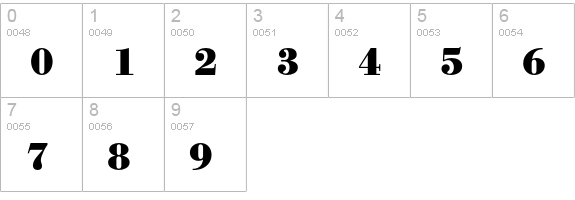
BodoniEF-Bold is a strong, high-contrast variant in the BodoniEF typeface family \xE2\x80\x94 well suited to headlines, attention-grabbing titles, and strong calls-to-action.
BodoniEF-Bold is a striking and elegant typeface that commands attention with its bold and distinctive presence. This font exudes a sense of sophistication and modernity, making it ideal for a wide range of design projects. With its clean lines and sharp serifs, BodoniEF-Bold exudes a timeless appeal that is both classic and contemporary. What sets BodoniEF-Bold apart is not only its striking design, but also the fact that it is available for free download at FontsMarket.com. This means that designers and creatives can access this high-quality font without any cost, making it a valuable resource for projects that require a touch of elegance and style. Whether used for branding, advertising, editorial design, or any other creative endeavor, BodoniEF-Bold is sure to make a bold statement and leave a lasting impression. Download this exquisite font today and elevate your designs with its timeless beauty and refinement.